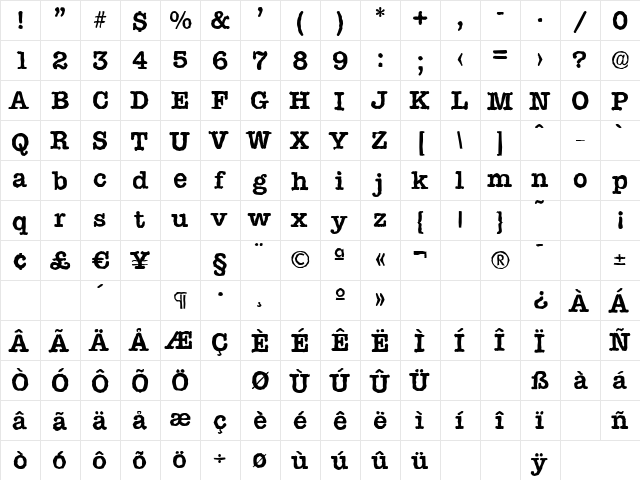
TypewriterAntique Bold
Design Context for TypewriterAntique Typeface
TypewriterAntique wears its vintage influences proudly, with letterforms that recall mid-century signage, classic packaging, and nostalgia-driven design. The heavy weight commands attention and anchors typographic hierarchies.
Perfect for vintage-inspired branding, retro packaging, nostalgia campaigns, and period-accurate editorial design.
Font Pairing: Combine TypewriterAntique with a simple slab or neutral sans — period-accurate companions reinforce the vintage feel without competing for attention.
Pro Tip: Use TypewriterAntique for headlines and pull quotes rather than body copy — its personality is best appreciated in short, focused bursts.